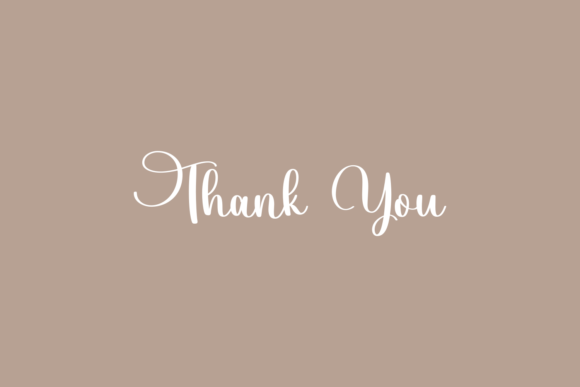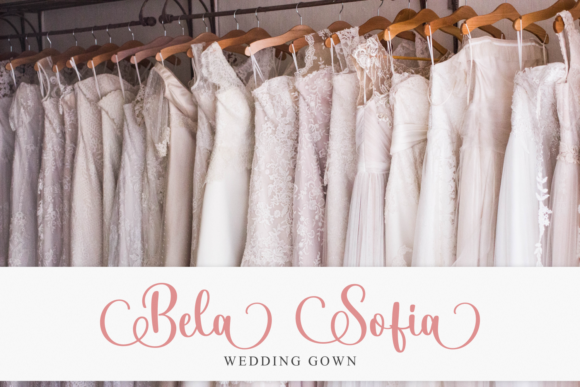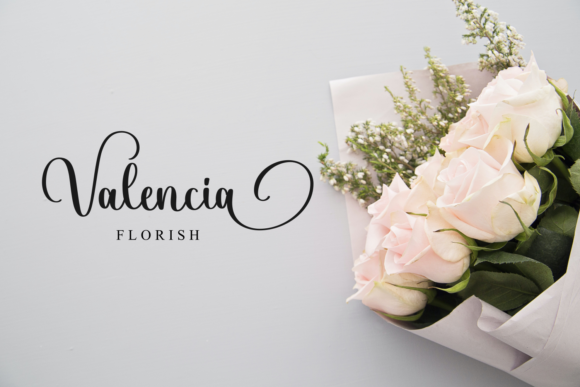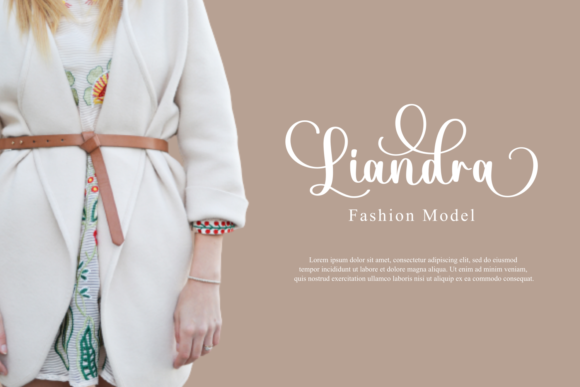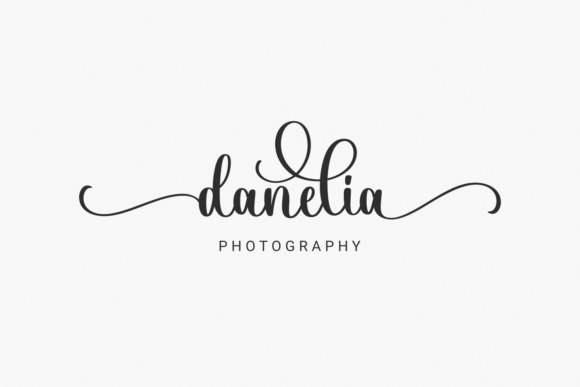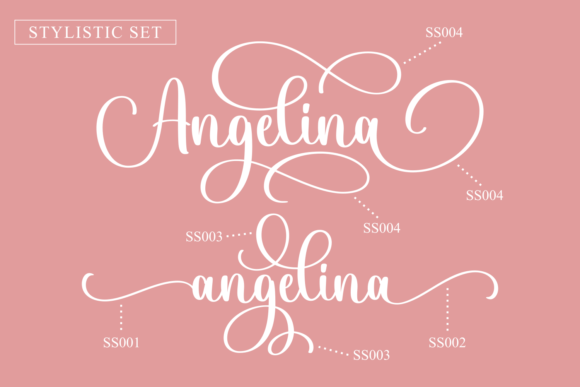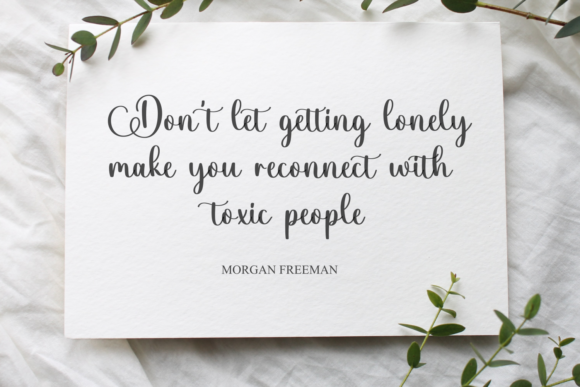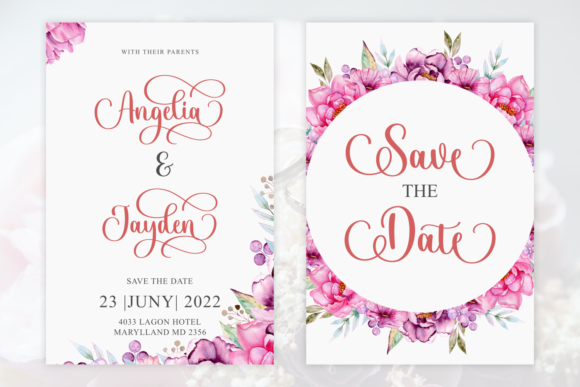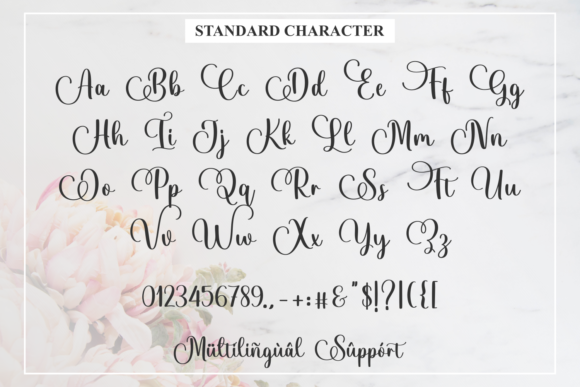
Greshian Font
About Greshian Font
Introducing Greshian, a curly and sweet handwritten font designed to bring a delightful touch to your creative projects. This font is suitable for a variety of applications, including logos, branding projects, labels, photography, watermarks, special events, and any other projects that demand a beautiful script taste.
Greshian’s charm lies in its curly and sweet script design, making it a perfect choice for projects that require a touch of playfulness and elegance. Whether you’re working on branding materials, enhancing your photography, or adding a signature touch to special events, this font adds a level of beauty and uniqueness to your designs.
For logos and branding projects, Greshian becomes a defining element in establishing a memorable and charming brand identity. The font’s sweet handwritten style adds a personal and inviting touch, ensuring your brand stands out with a touch of elegance.
In labels and packaging, Greshian enhances the visual appeal of products with its beautiful script taste. The curly and sweet characters contribute to a visually appealing presentation, making your labels and packaging designs captivating.
Photography and watermarks benefit from the delightful touch of Greshian, adding a playful and stylish flair to your images. The sweet script enhances the overall aesthetics, creating a visual impact that leaves a lasting impression.
For special events and lovely projects, Greshian brings a beautiful script taste that complements the atmosphere of charm and sweetness. The font adds a touch of uniqueness to invitations, cards, and any other design elements, making them truly special.
Greshian is more than just a font; it’s a creative tool that allows you to infuse your projects with a sense of playfulness and elegance. Embrace the curly and sweet vibe of Greshian as you confidently incorporate it into your various creative endeavors, adding a beautiful script taste to your designs.